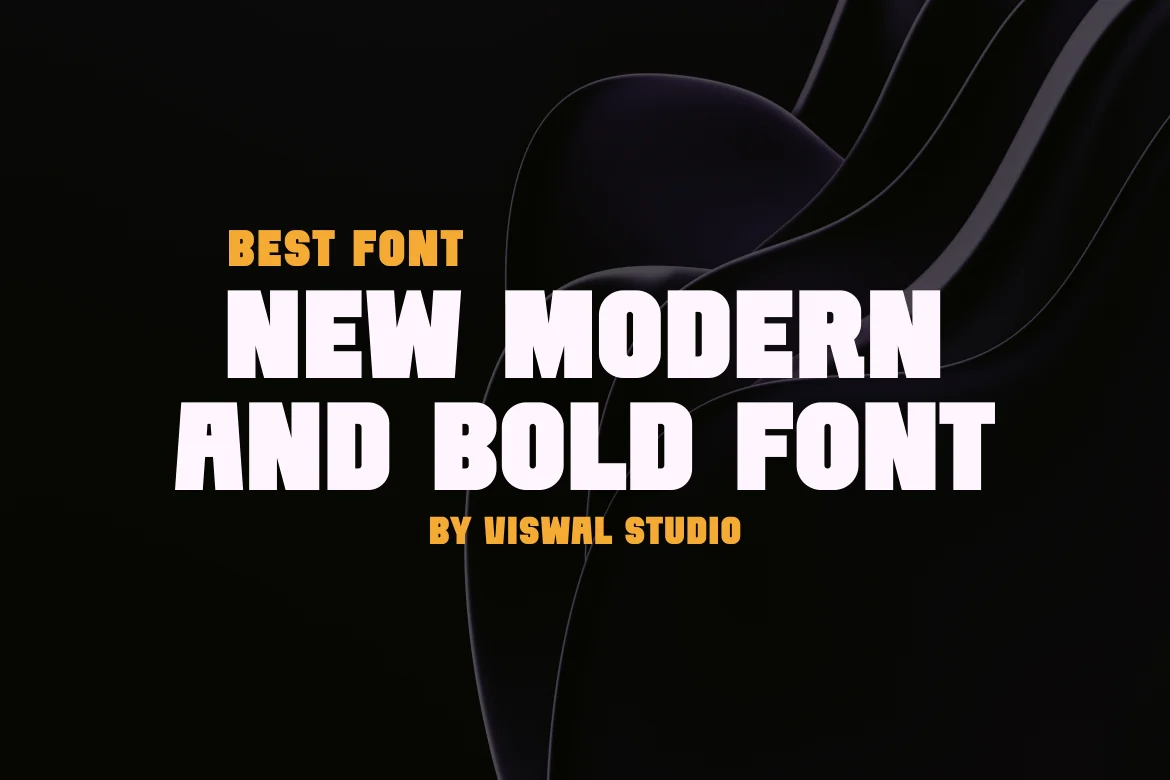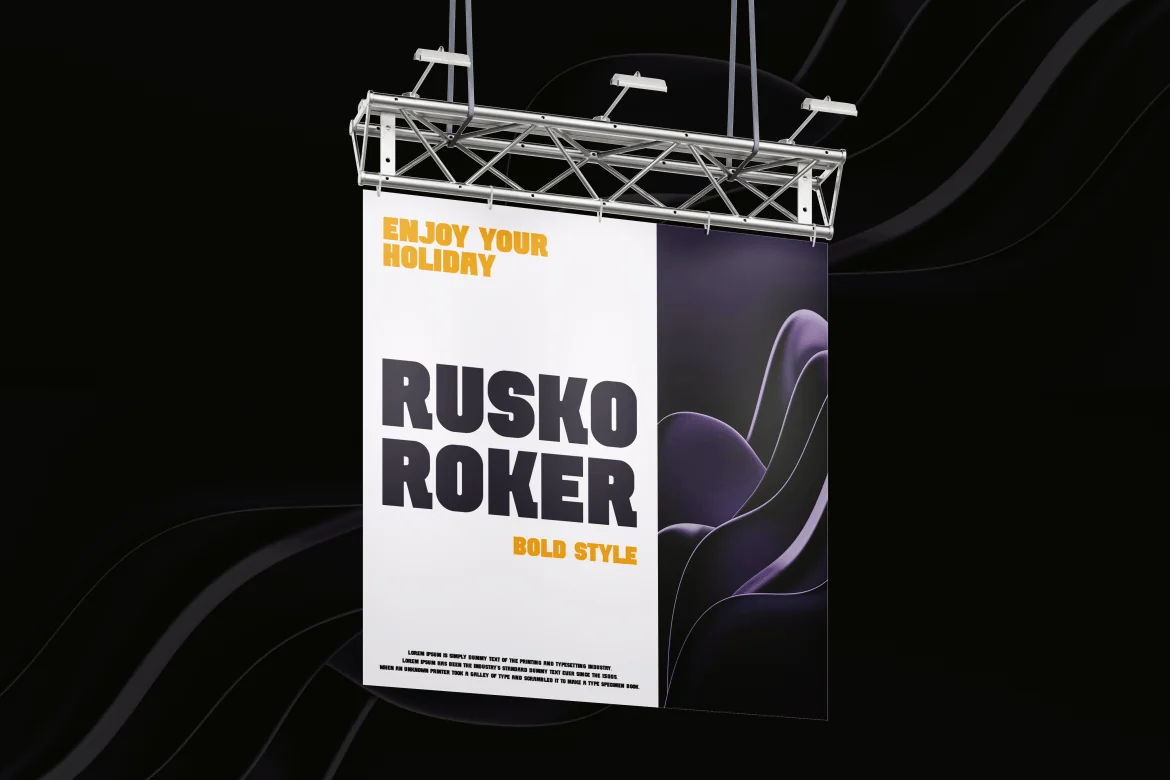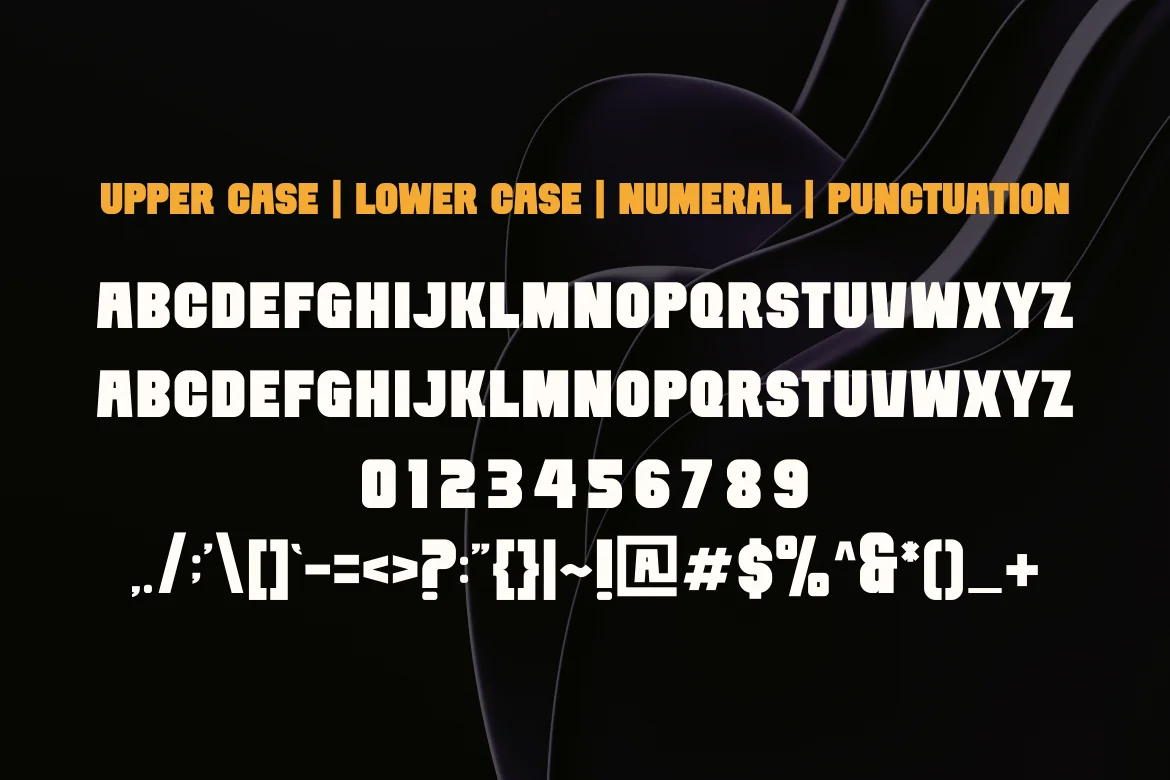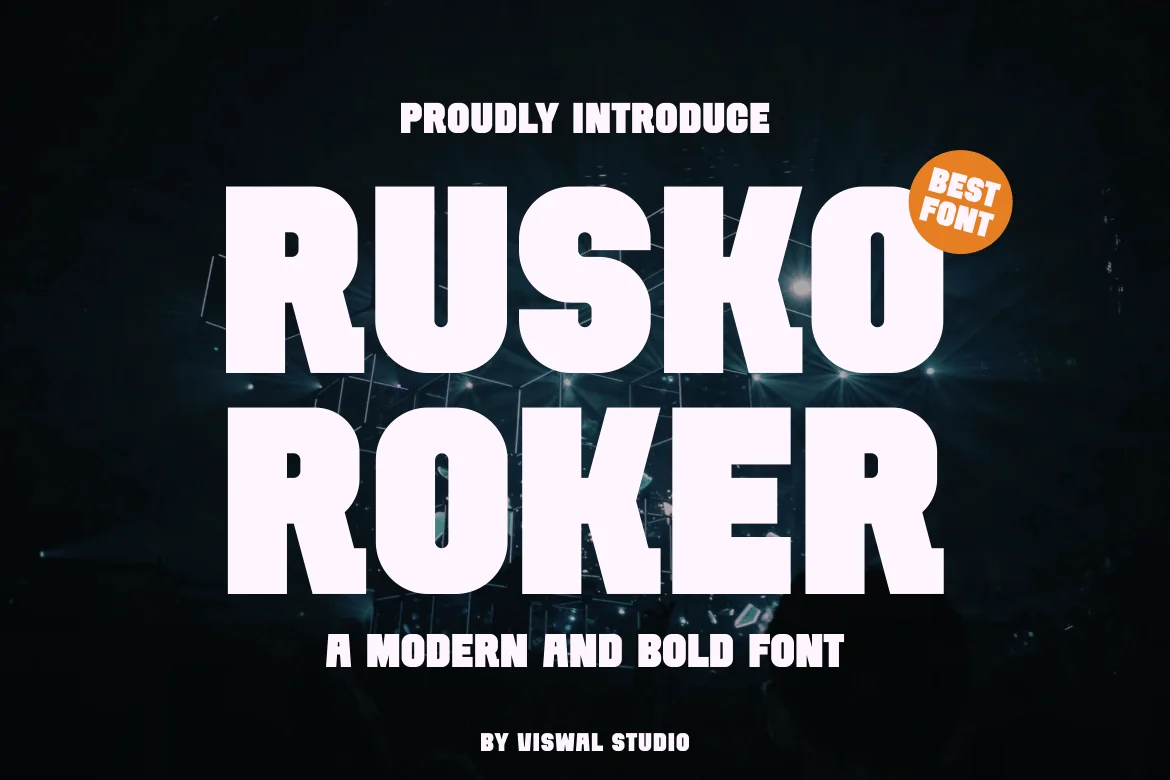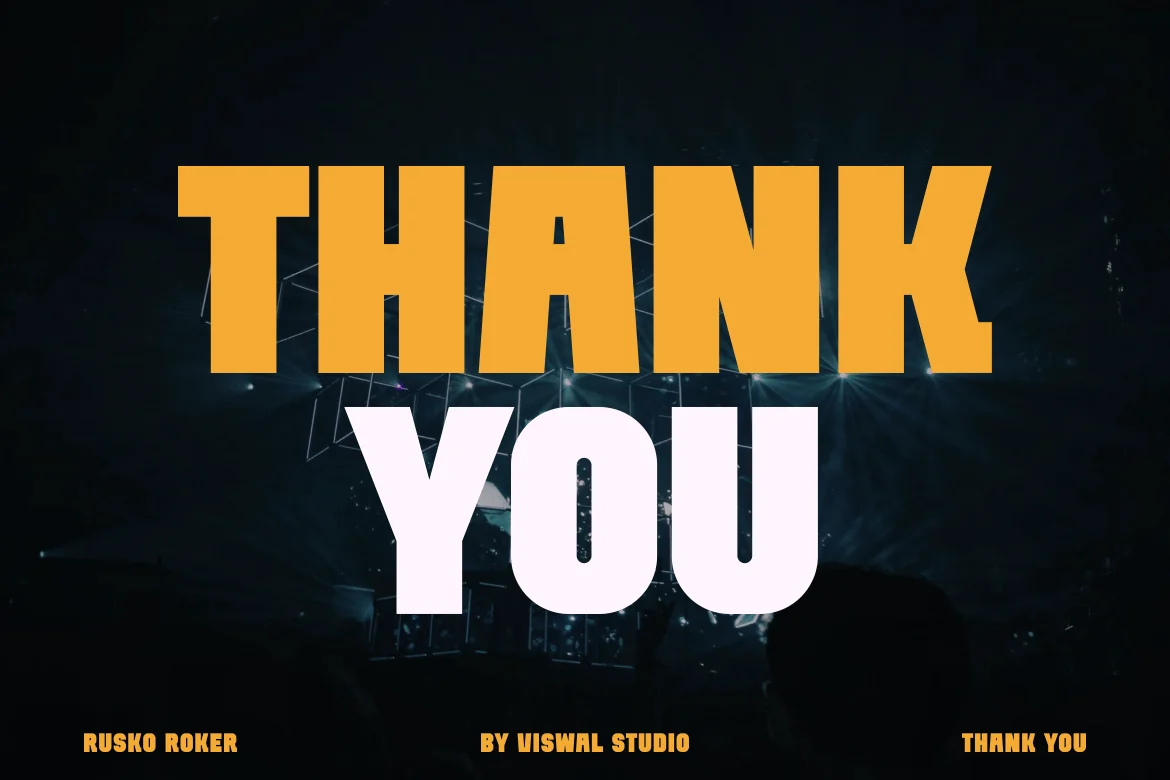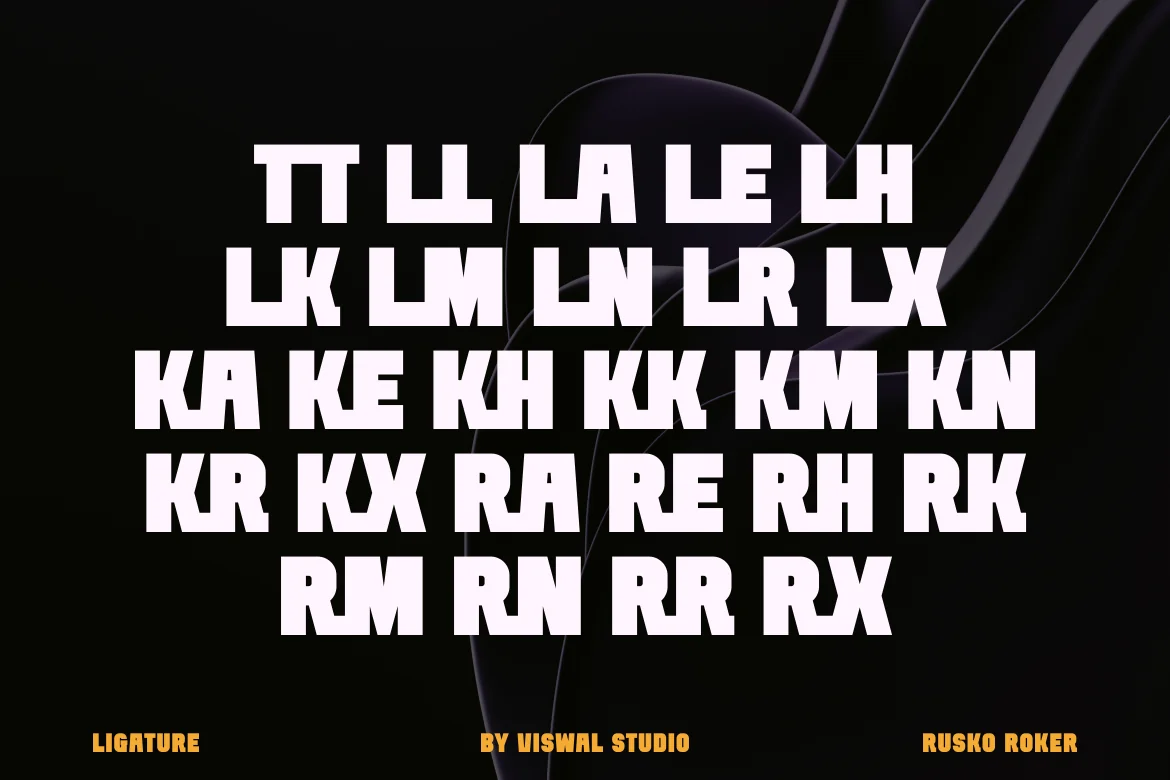
Rusko Roker – Bold Font
Presenting Rusko Roker – Font is suitable for badge, labels, logo, branding, magazine, poster and etc. Our fonts have Uppercase & Lowercase, Numeral & Punctuation, Multilingual support and Opentype Features. For Amazing designs you can mix with other fonts as a complement.